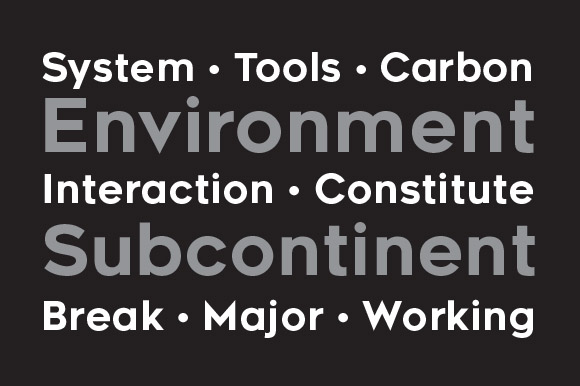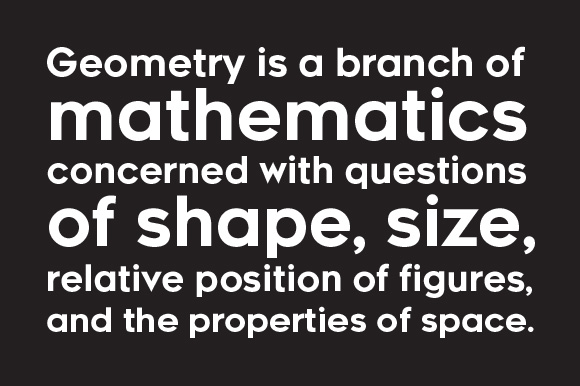
Introduction to Renogare Font
Renogare is a clean and elegant sans serif font created by Deepak Dogra.
Key Features of Renogare Font
Why Choose Renogare Font?
Renogare Font offers exceptional quality and versatility, making it a valuable addition to your design toolkit. Whether you’re creating for personal projects or commercial use, Renogare Font delivers professional results.